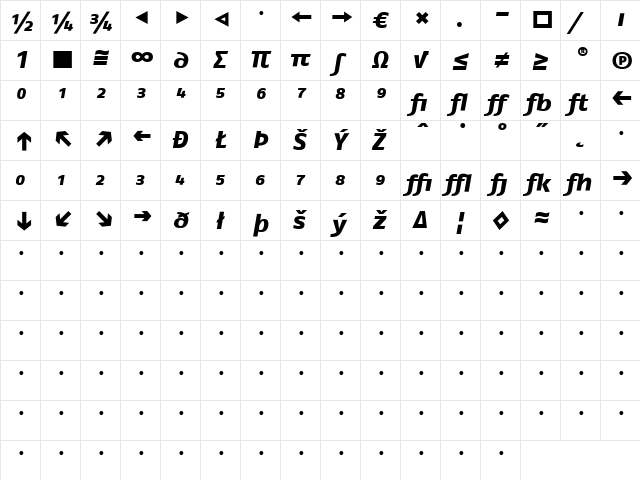
FagoEx ItalicExtrabold Font Preview
FagoEx ItalicExtrabold
FagoEx ItalicExtrabold Font Details
| Style | ItalicExtrabold |
| Foundry | Ole Schaefer, . Published by FontShop International for FontFont Release Fago Extended is a trademark of FSI Fonts and Software GmbH |
Design Context for FagoEx Typeface
FagoEx takes a measured approach to typography — its balanced proportions and neutral character make it a reliable workhorse for both digital and print work. Its italic angle brings a sense of urgency and motion to the letterforms. Its bold stroke weight gives it real presence on the page.
Pro Tip: Use FagoEx for emphasis, pull quotes, and subheadings where its slanted energy can add rhythm to the layout.